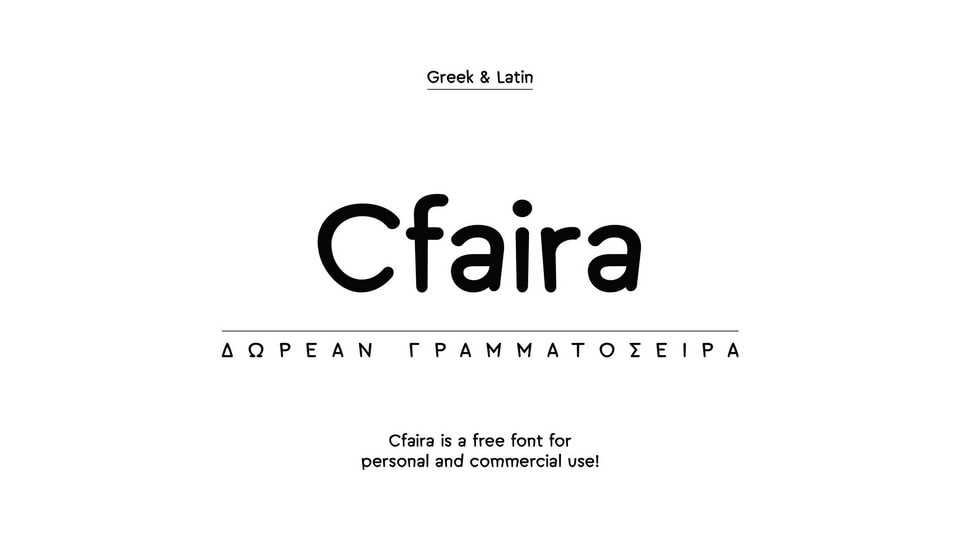
Download Cfaira font, a handwritten typeface that perfectly balances cuteness with a touch of fierceness. It features playful, rounded letterforms with edgy, dynamic strokes.
Designer: Christos Lentzaris